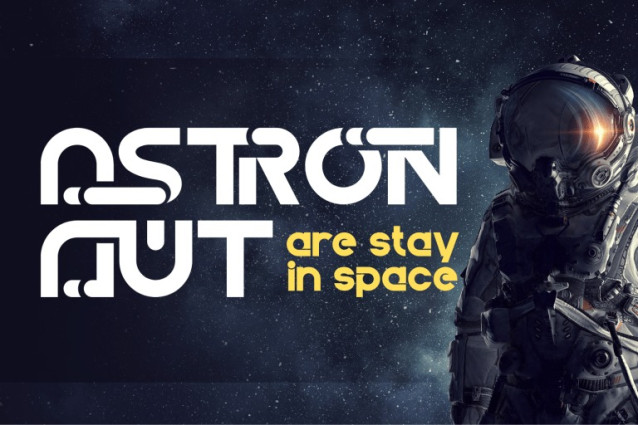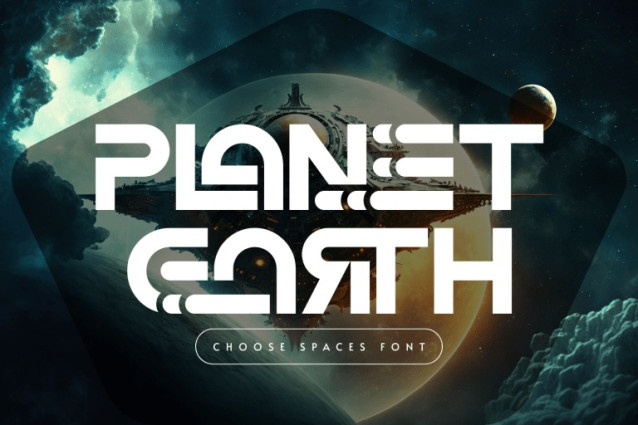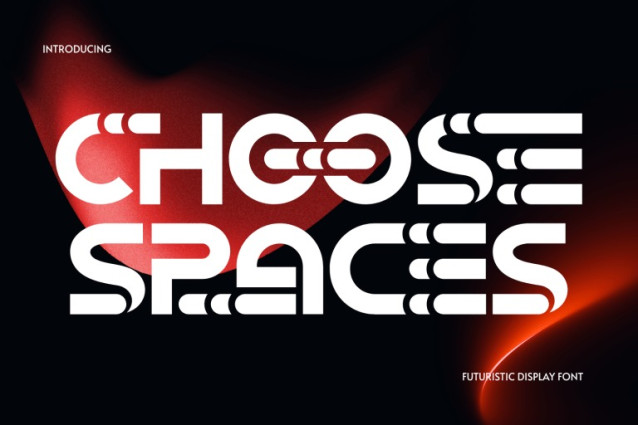
CHOOSE SPACES FONT
CHOOSE SPACES FONT is a modern futuristic display font inspired by space technology and modular design systems. Featuring rounded geometric letterforms combined with unique segmented details, this typeface delivers a clean yet highly distinctive sci-fi aesthetic. Each character is carefully constructed with smooth curves and repeated modular elements, creating a sense of connection, motion, and digital precision. The balanced stroke weight ensures strong readability while maintaining a sleek and contemporary appearance.
Uppercase & Lowercase Letters
Around 100 Special Ligatures & Alternates
Accented Characters for multilingual support
🔤About 100 ligatures combined with Stylistic Alternates Font:
AC AD AL AN AR AS AT AU AV BE CA CE CH CO CT DE DI EA EC ED EE EL EM EN EP ER ES ET FE FO FR GE HA HE HI HO IE IC IL IN IO IR IS IT JU KE LA LE LI LL LO LY MA ME MI NC ND NE NG NO NT NS OC OF OM ON OO OP OR OT OU OW PA PR RA RD RE RI RO RS RT SE SH SI SO SS ST TA TE TH TI TO TR TT UM UN UR VE WI WO